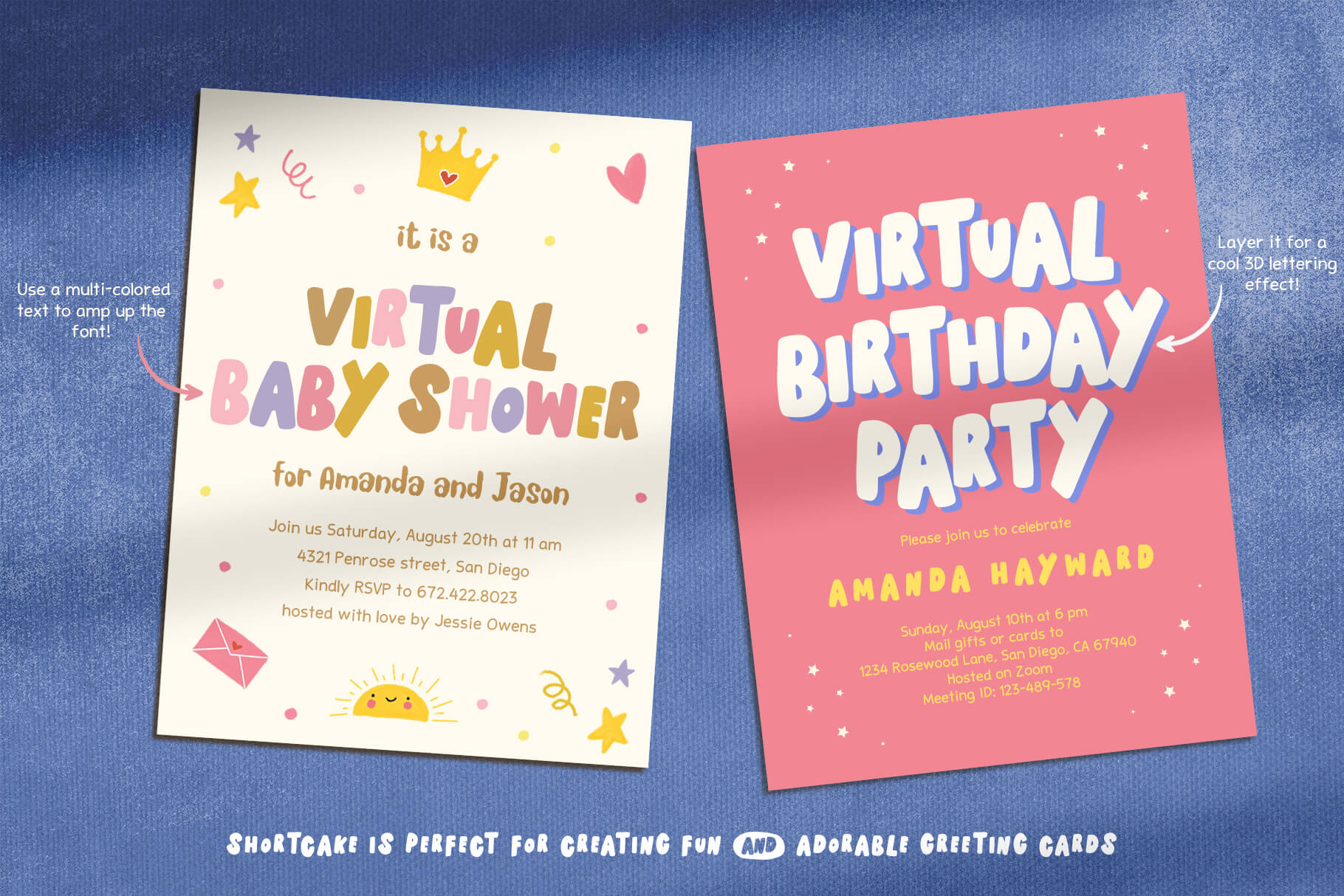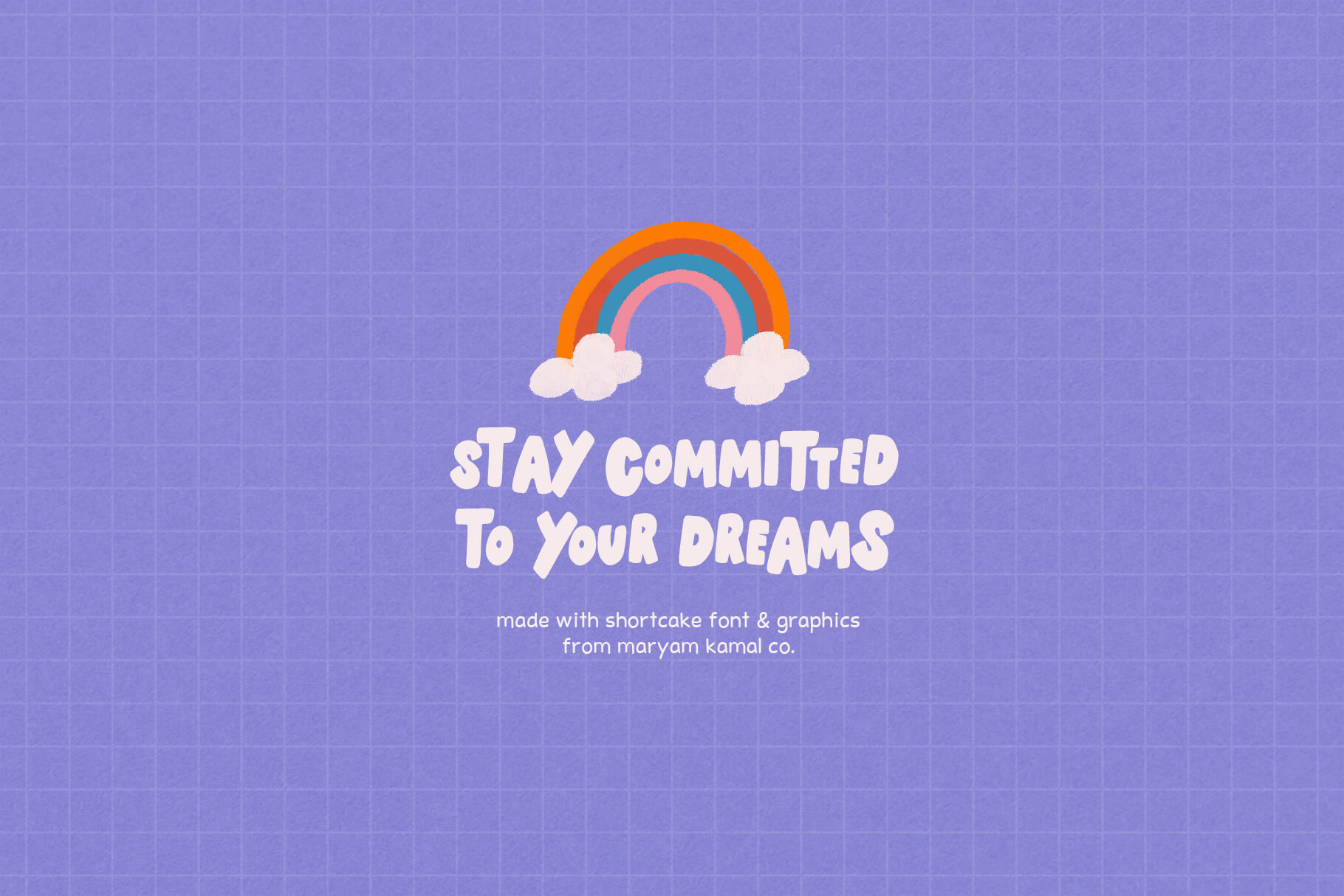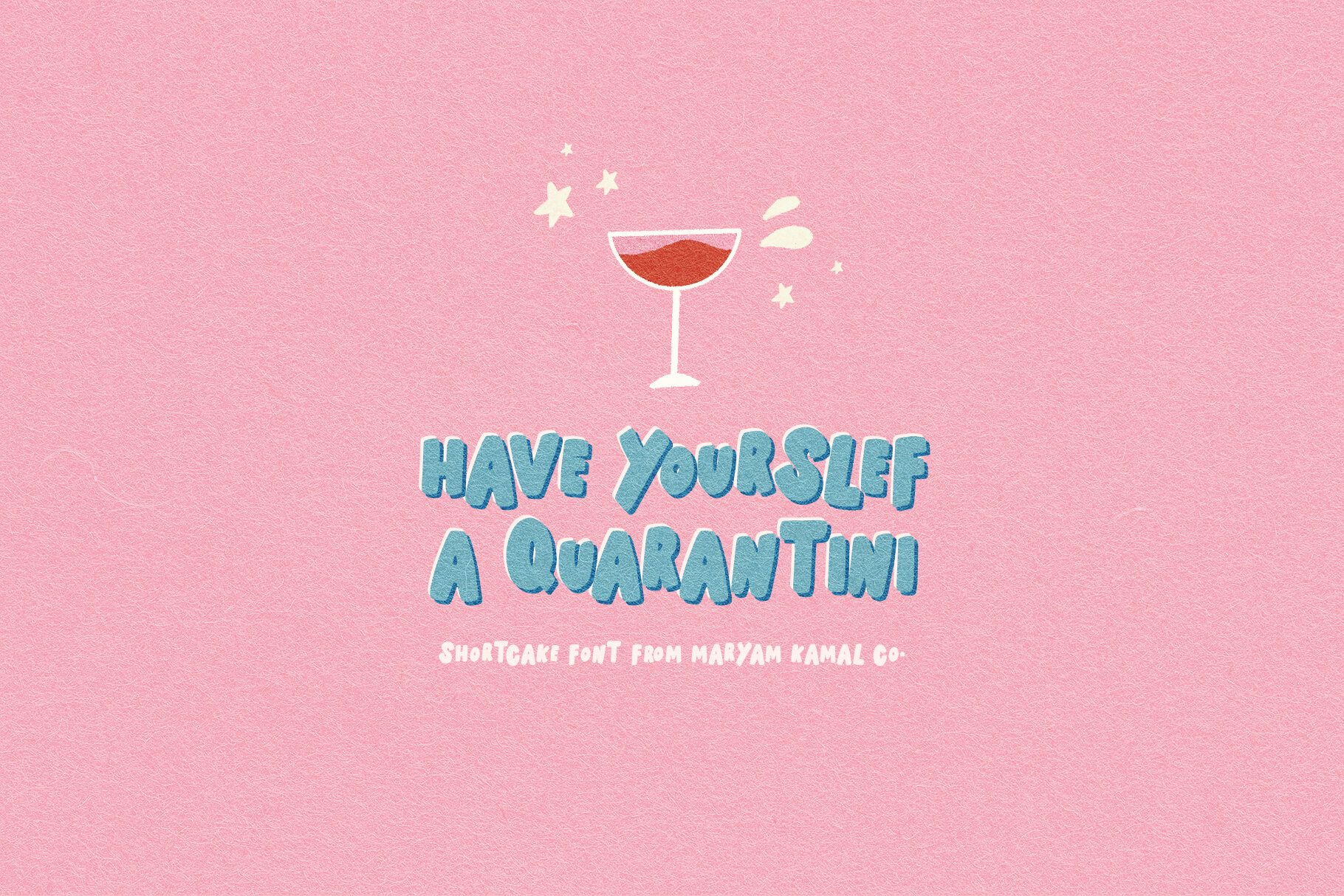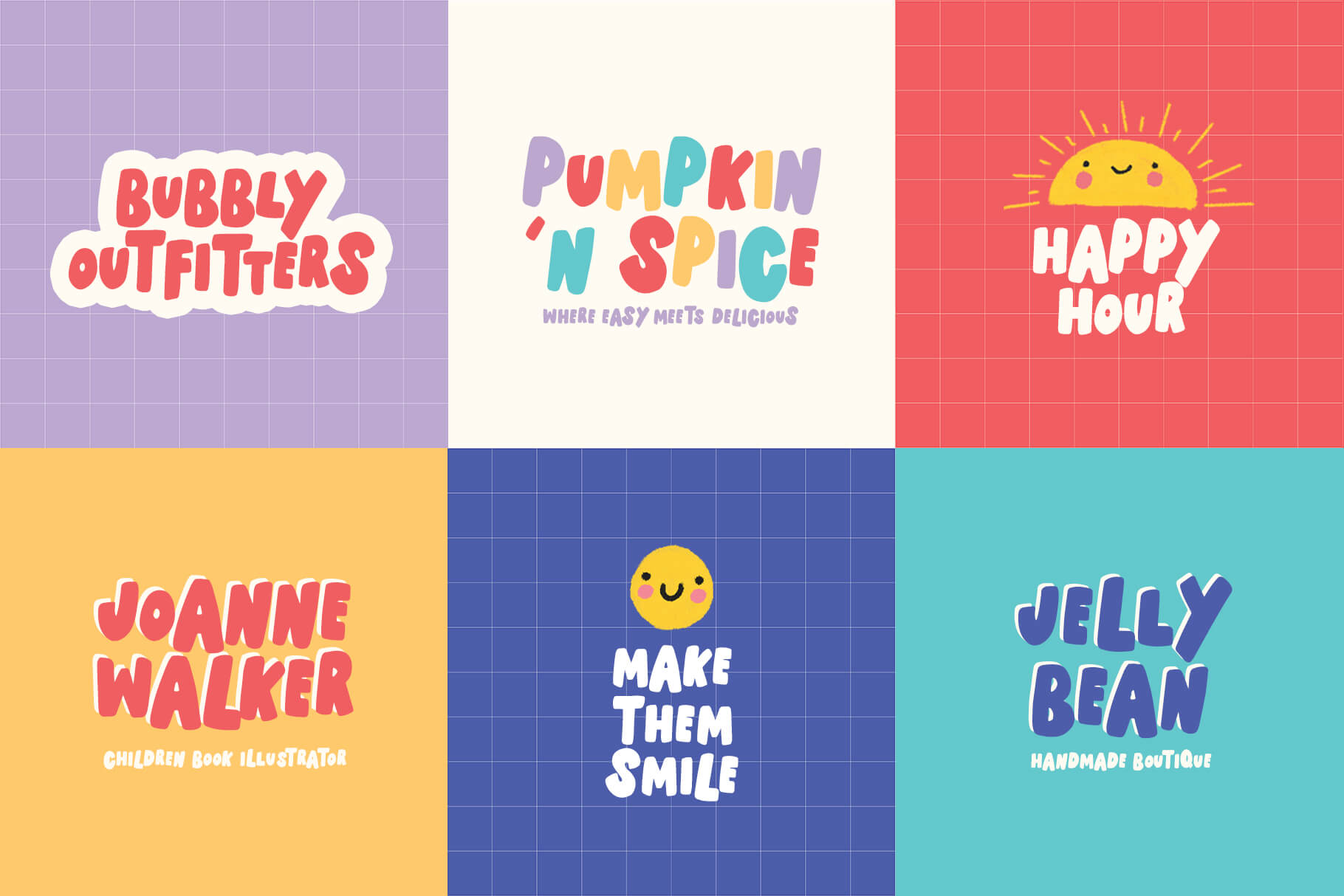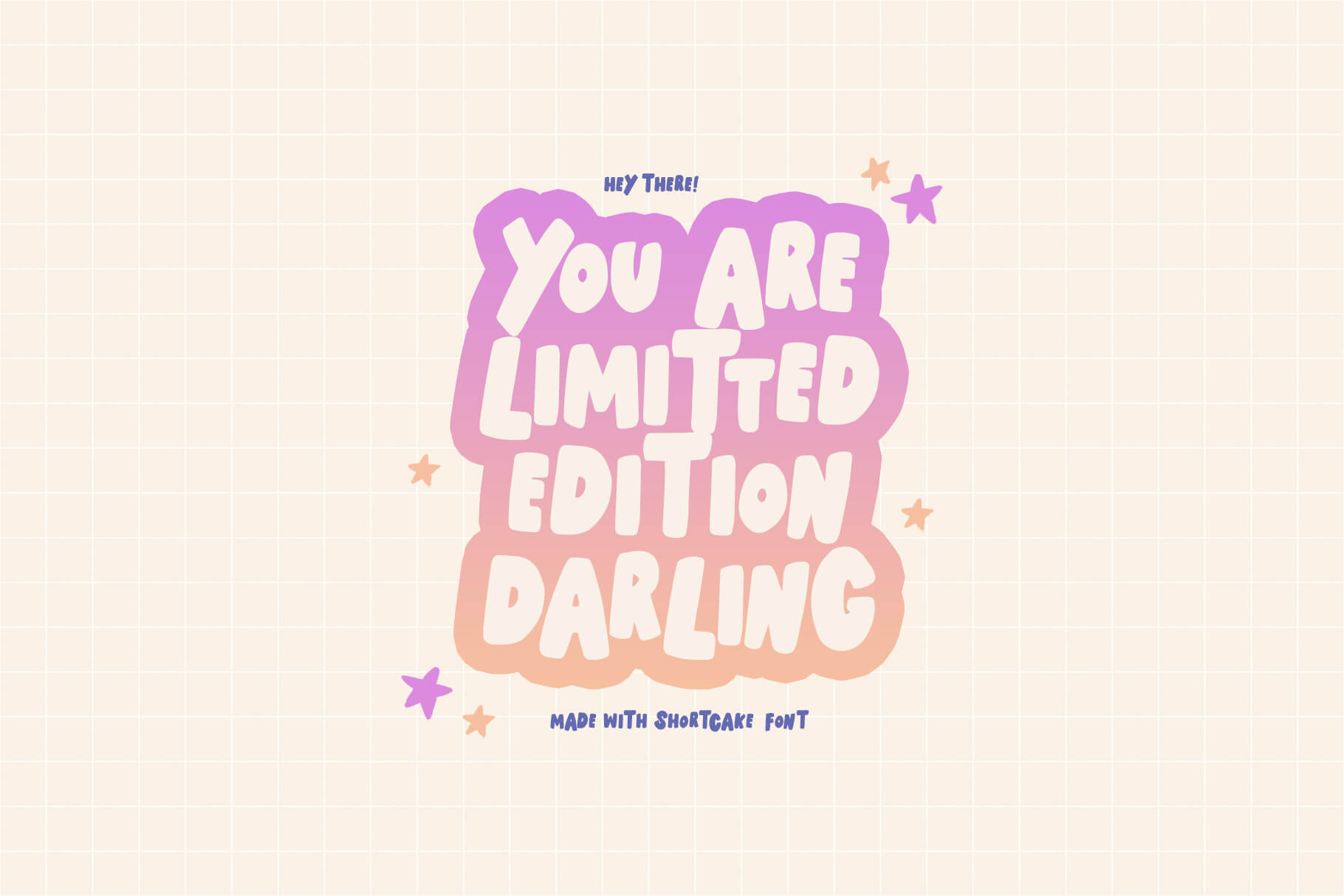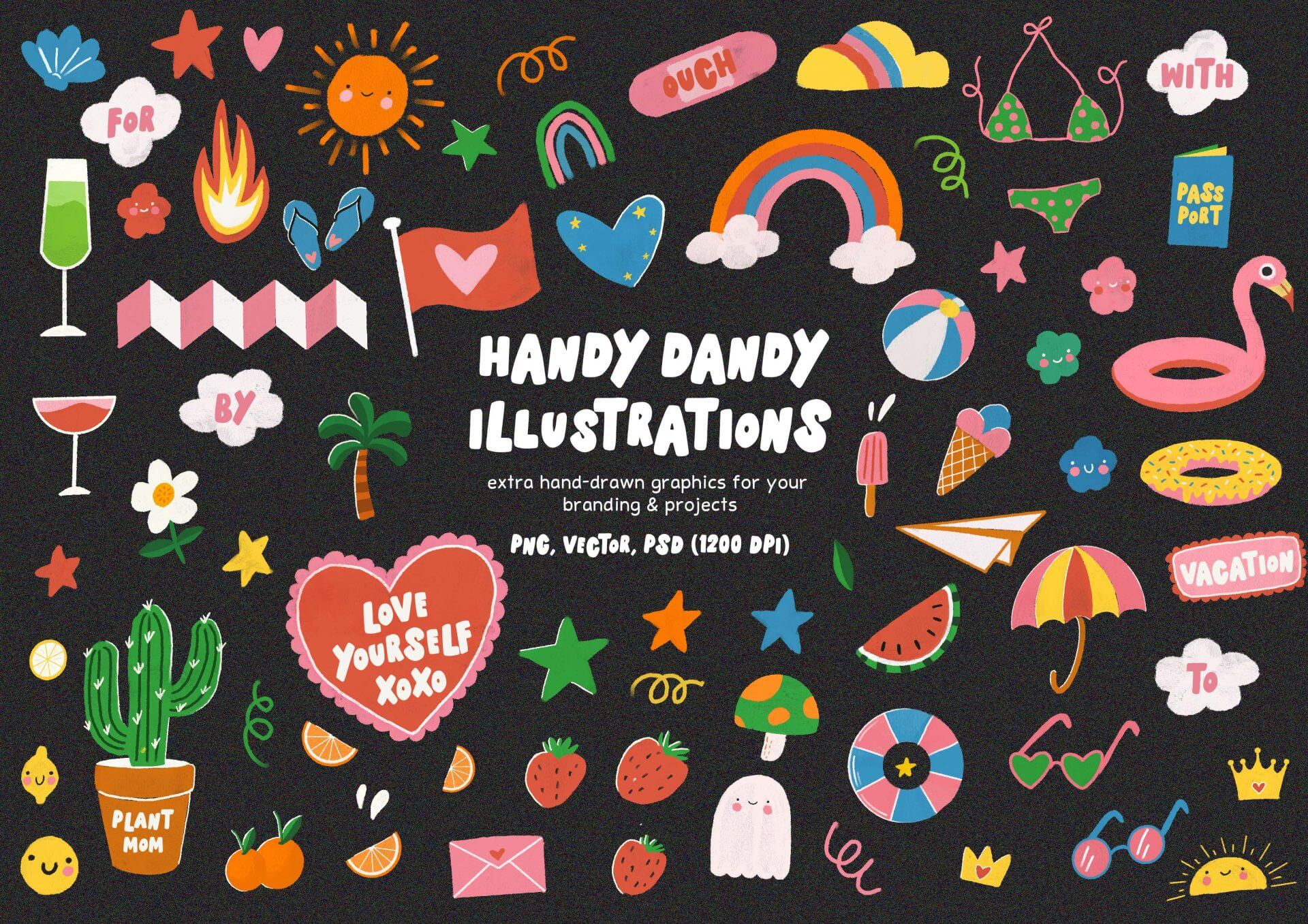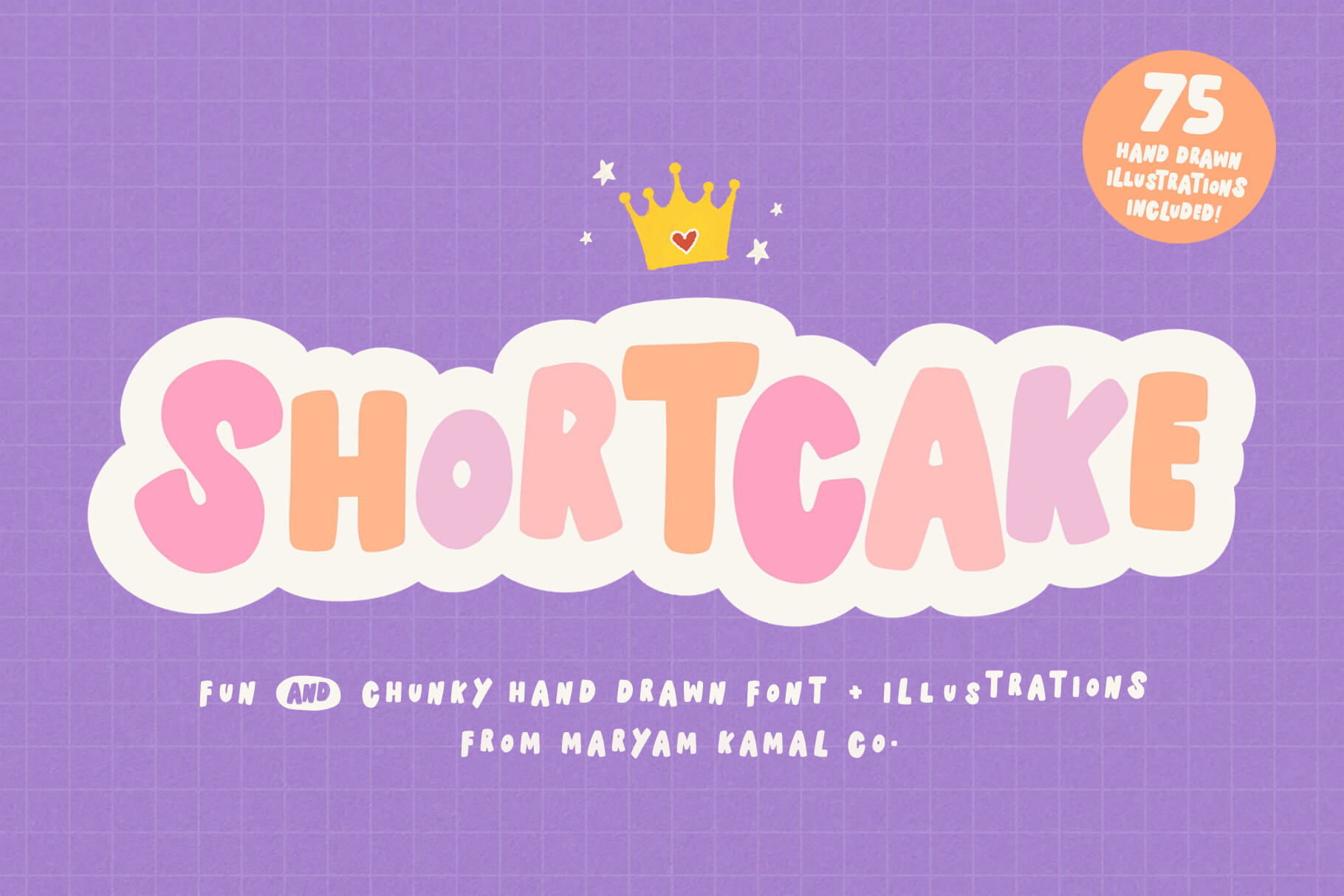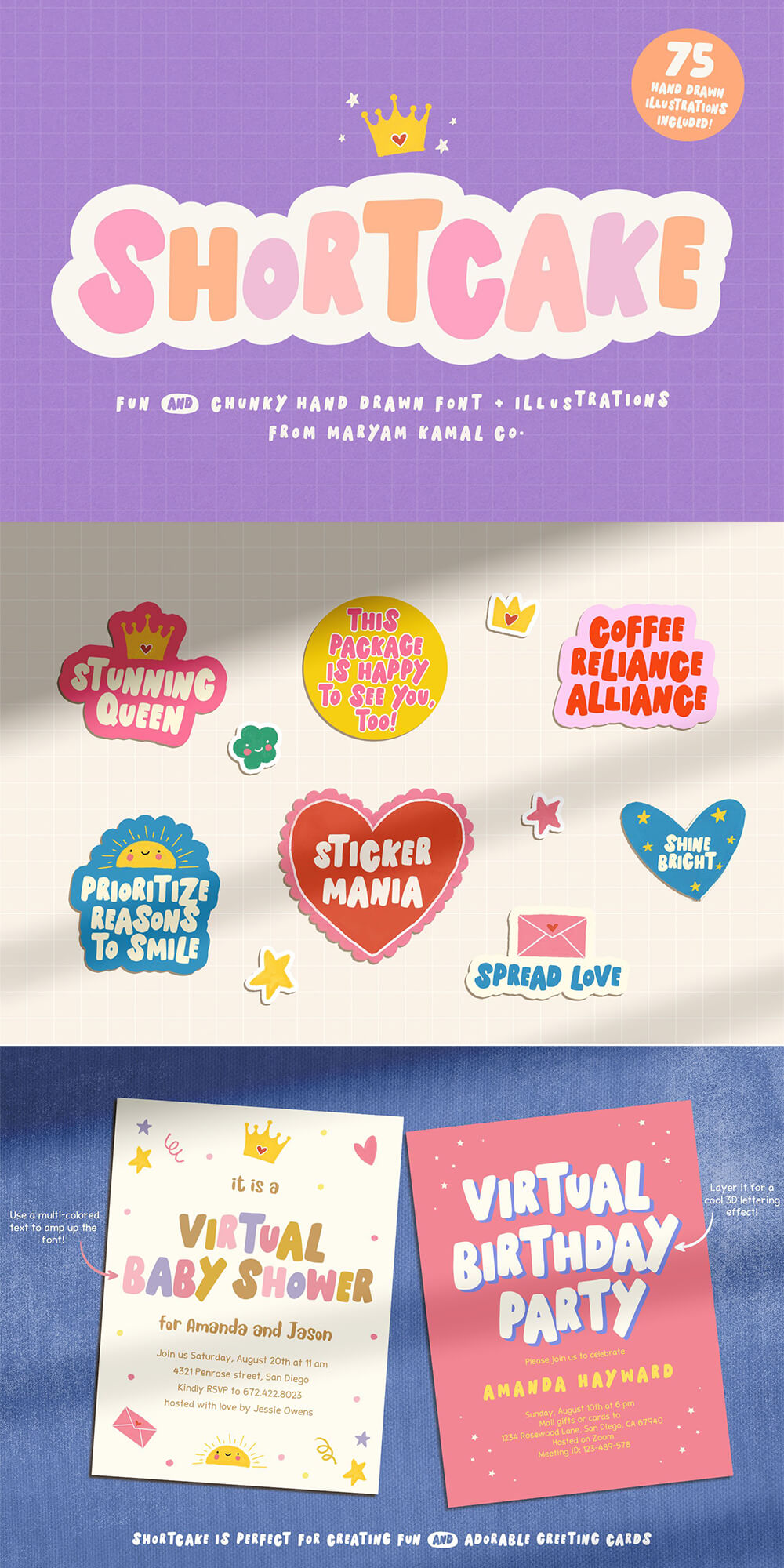
Shortcake Font & Illustrations
Introducing Shortcake – a playful, chunky font and graphics!
This adorable all caps font is perfect for creating fun instagram posts, greeting cards, stickers (hello small business owners!). Comes with a few ligatures to ensure a perfectly bouncy little font that flows nicely 🙂
MULTI-LINGUAL CHARACTERS: á â à ä å ã æ ç é ê è ë í î ì ï ı ñ ó ô ò ö õ ø œ š ß ú û ù ü ý ÿ ž À Ä Å Ã Æ Ç É Ê È Ë Í Î Ì Ï Ñ Ó Ô Ò Ö Õ Ø Œ Š Û Ù Ü Ý Ÿ